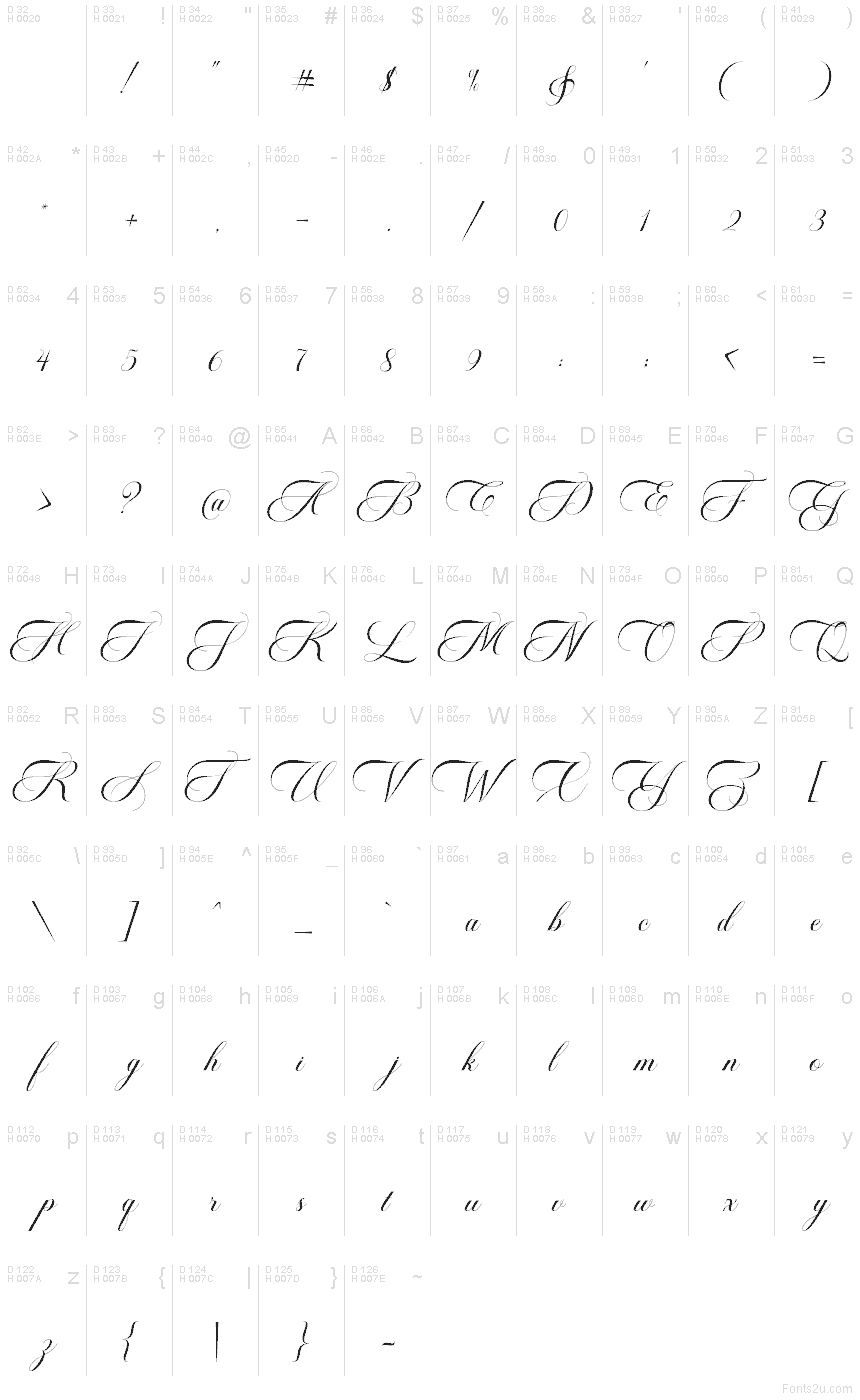
MutiaraCalligraphy
Mutiara Calligraphy font by Romi Rahmadi is an elegant calligraphy font with fluid motions and an ornamental style. Its sophisticated design gives the font a formal appearance with a classic flair. Their flawless structure reflects the deep usability of this free calligraphy font that can be used widely and effectively in projects where readers need to feel extra special.